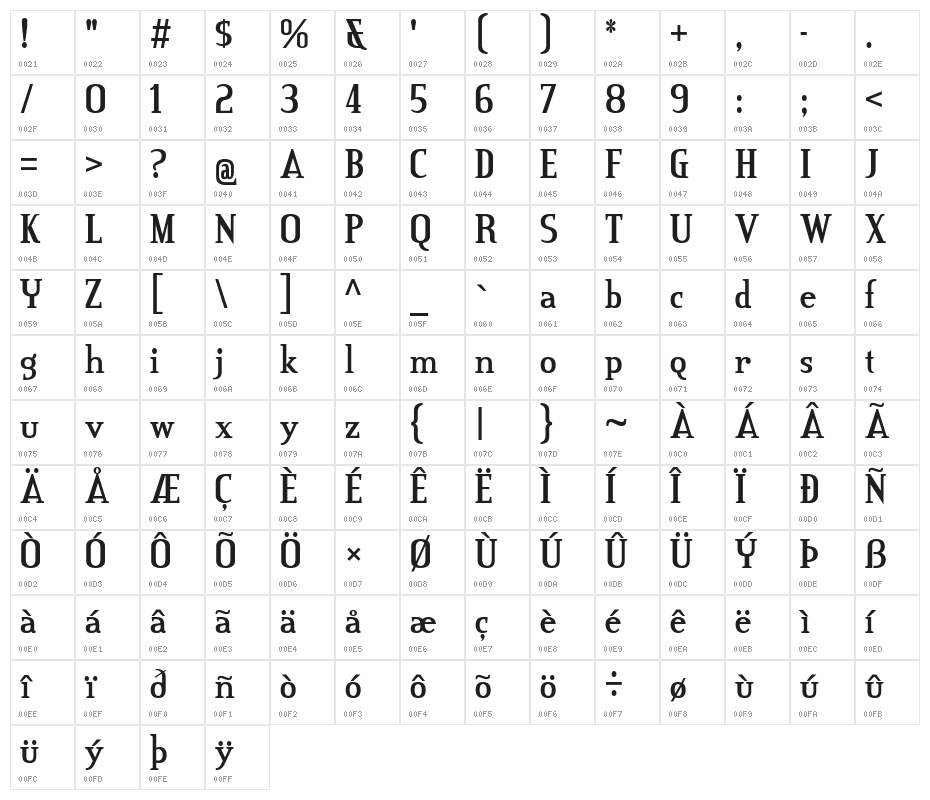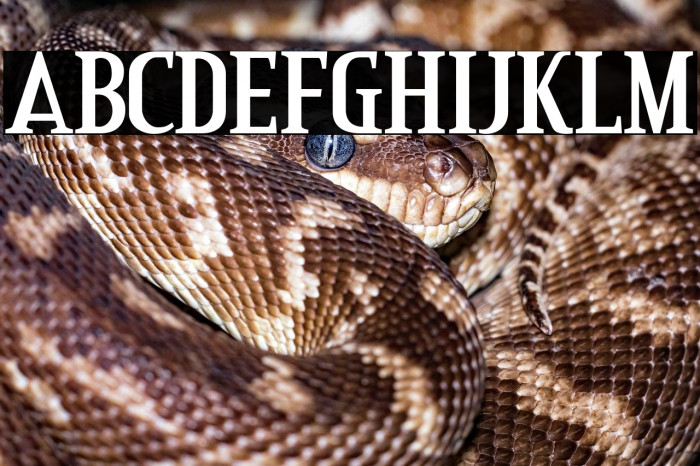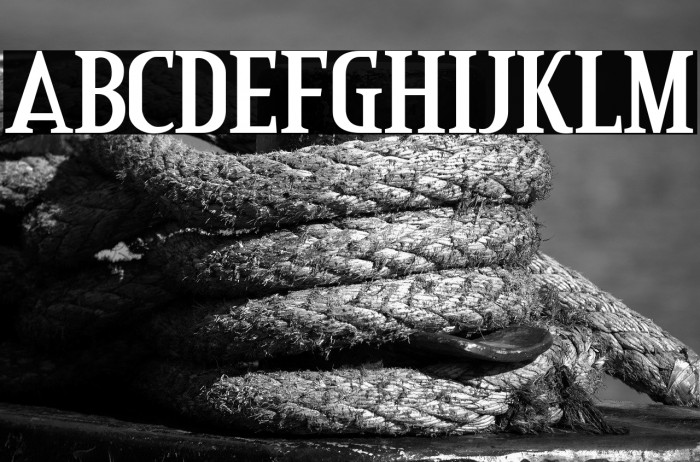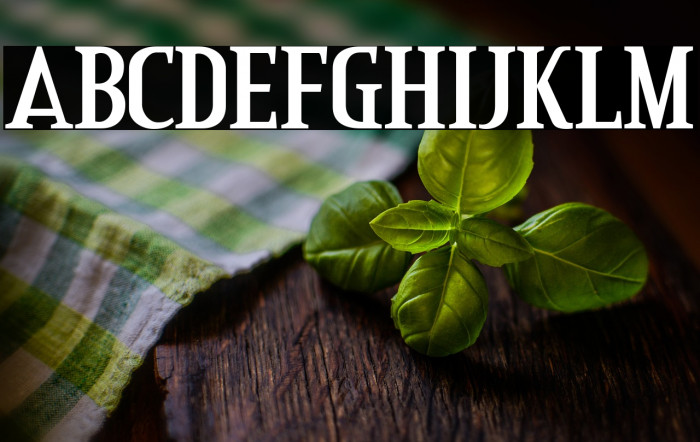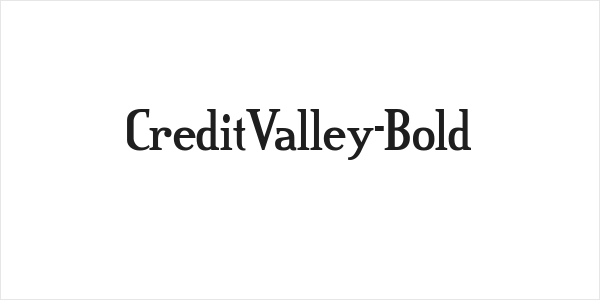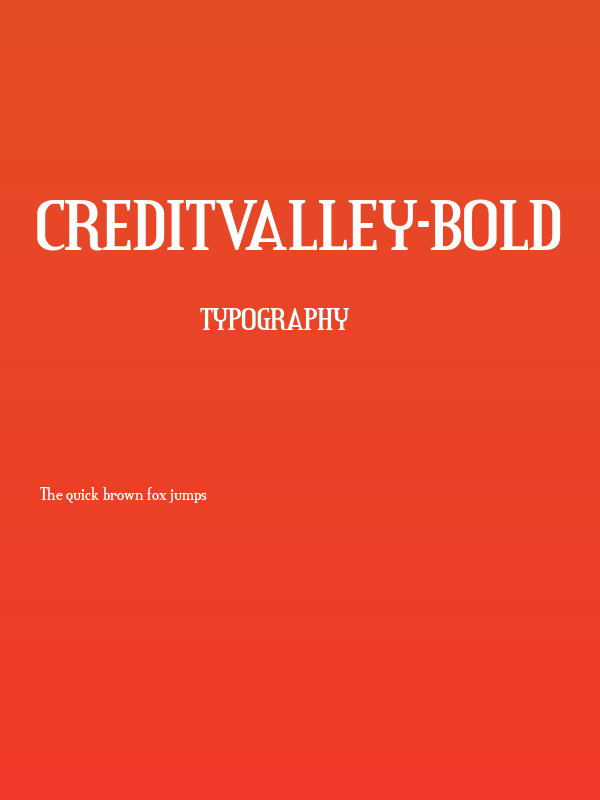
CreditValley-Bold Font
CreditValley-Bold Description
This font exhibits a bold and authoritative presence with its strong, thick strokes and slightly condensed letterforms. The serifs are pronounced, adding a classic touch to the overall modern aesthetic. The uppercase letters are tall and commanding, while the lowercase letters maintain a balanced proportion, ensuring readability. The numerals are robust and consistent with the overall bold style, making them stand out effectively. Special characters are designed with the same attention to detail, ensuring they integrate seamlessly with the alphabetic characters.
| Proposed Projects | Ideal for headlines, branding projects, posters, and any design requiring a bold statement. |